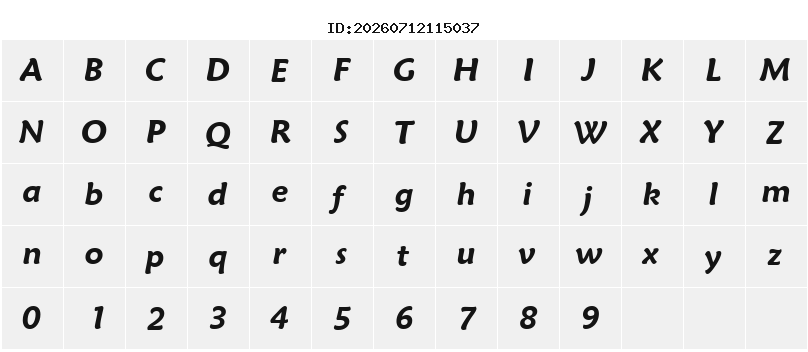
Maiandra Demi Bold Italic GD Preview
• Font Name: Maiandra Demi Bold Italic GD
• Font ID: Maiandra Demi Bold Italic, Freeform
• Full Font Name: Maiandra Demi Bold Italic GD
• Version: mfgpctt-v1.86 Sat Aug 17 14:06:10 EDT 1996
• PostScript Name: MaiandraGD-DemiBoldItalic
About Maiandra Demi Bold Italic GD.ttf
Maiandra Demi Bold Italic GD.ttf is a modern, elegant sans-serif font designed for ultimate readability and visual harmony. Perfect for branding, headlines, web design, and print materials.